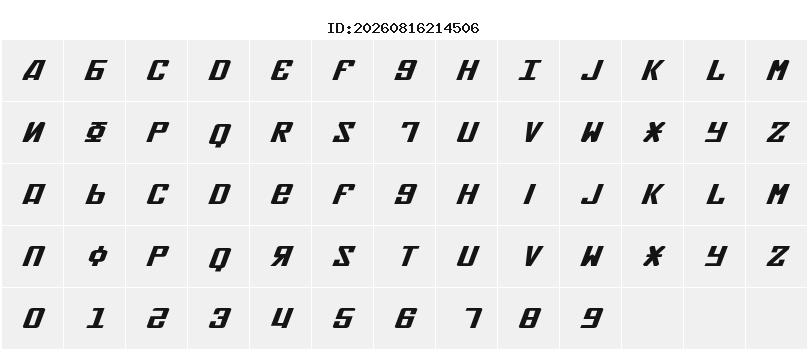
• Font Name: Soviet X-Expanded Italic
• Font Style: X-Expanded Italic
• Full Font Name: Soviet X-Expanded Italic
• Designer: Dan Zadorozny
About Soviet X-Expanded Italic.ttf
Soviet X-Expanded Italic.ttf is a modern, elegant sans-serif font designed for ultimate readability and visual harmony. Perfect for branding, headlines, web design, and print materials.